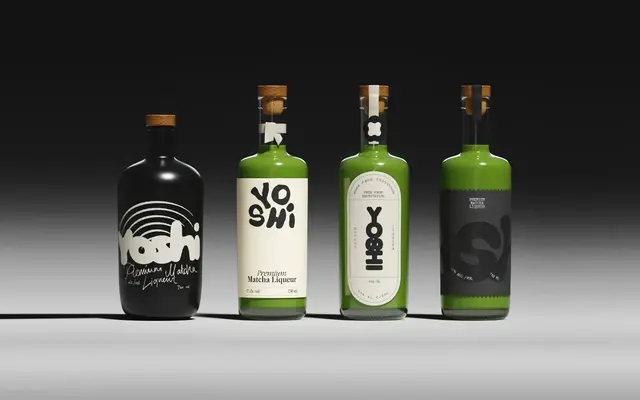
Nikkei
Pangram Foundry · Caio Kondo, Francesca Bolognini, Mat Desjardins · 2024
A four-subfamily sans-serif collection built as a typographic tribute to Japanese immigration to America, drawing on hand-lettered ships' signage, Nikkei community newspapers and Japanese family crests.
Designed by Caio Kondo, Francesca Bolognini and Mat Desjardins, the collection comprises four distinct families — Maru, Journal, Line and Pacific — each with 18 styles plus a variable cut and a Crest Set. The subfamilies share a geometric grotesque foundation while each expressing a different formal register, from the rounded warmth of Maru to the structured clarity of Line. Italics and stylistic alternates are included throughout, making it suitable for title compositions with varied rhythmic options.
The foundry categorises it as Geometric and Grotesk; four sub-families share a sans-serif structure with geometric underpinnings drawn from Japanese-American cultural sources including hand-lettered signage and community newspapers.